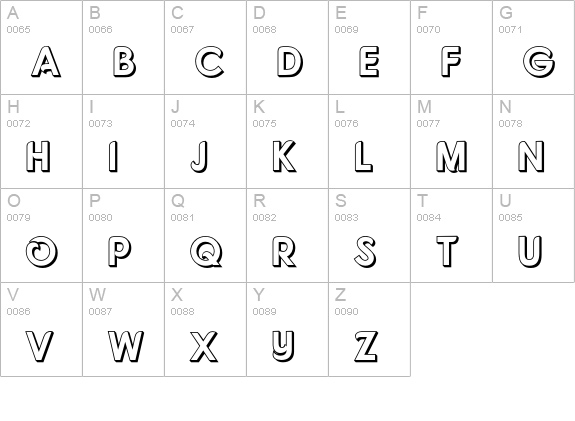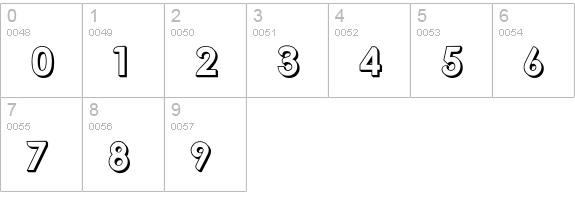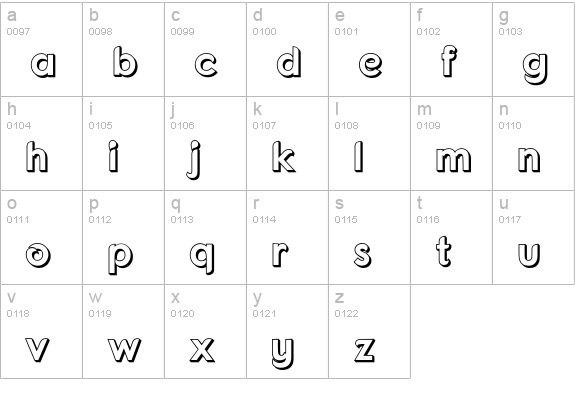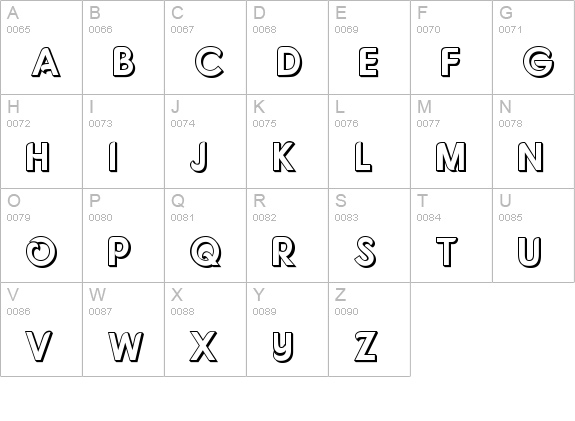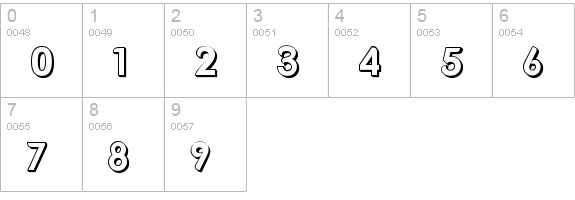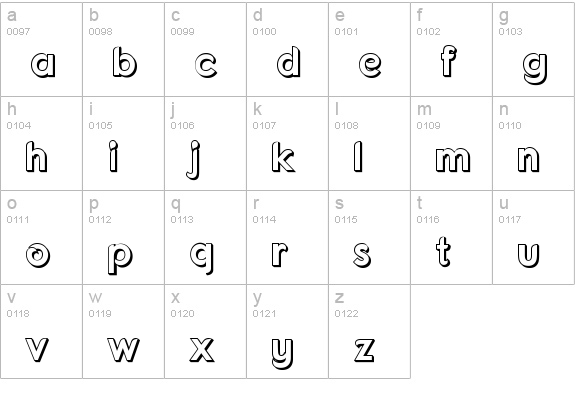
Fonarto XT Font Details
Fonarto XT is a stunningly elegant font that exudes sophistication and style. With its sleek lines and perfectly balanced letterforms, this font is sure to make a lasting impression in any design project. Whether used for headings, body text, or logos, Fonarto XT adds a touch of class and professionalism. But what sets Fonarto XT apart from other fonts is that it is not only visually captivating, but it is also free! Yes, you read that right. This incredible font can be freely downloaded from FontsMarket.com, making it accessible to designers, artists, and anyone with a passion for typography. Designed with meticulous attention to detail, Fonarto XT captures the essence of modern design while maintaining a timeless appeal. Its clean and crisp appearance makes it highly legible at any size, ensuring that your message is conveyed effortlessly. The versatility of Fonarto XT is truly remarkable. It seamlessly adapts to various design styles, effortlessly complementing both minimalist and bold aesthetics. Whether you're creating a logo for a high-end brand, designing a magazine layout, or crafting a website with a touch of elegance, Fonarto XT is the perfect choice. The extensive character set of Fonarto XT includes uppercase and lowercase letters, numerals, punctuation marks, and special glyphs. This means that you have all the tools you need to unleash your creativity and bring your design visions to life. So why wait? Take advantage of this incredible opportunity to enhance your design projects with the exquisite beauty of Fonarto XT. Download it for free now at FontsMarket.com and see for yourself the impact it can have on your creations. Elevate your designs to new heights with Fonarto XT and make a lasting impression today.